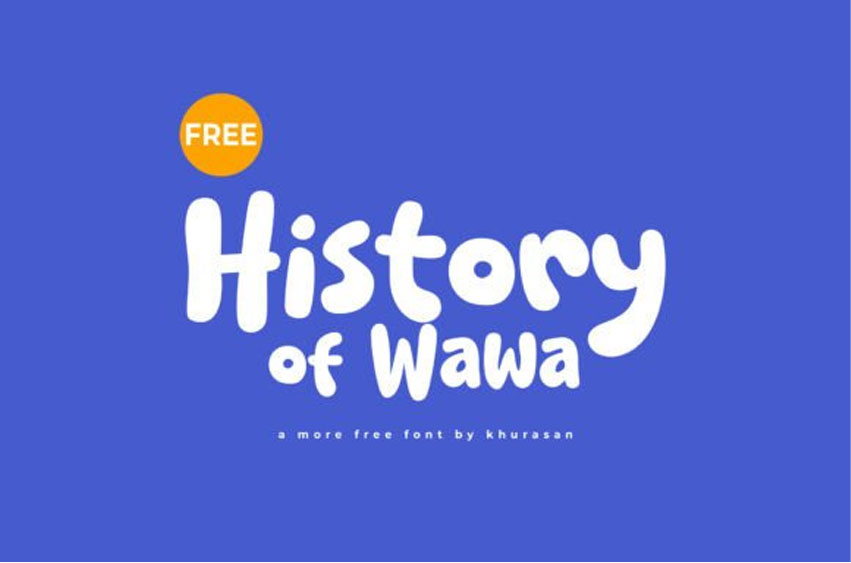
History of Wawa Font
History of Wawa Font is a modern and cute script font perfect for posters, logos, magazines, book covers, banners, and many more!